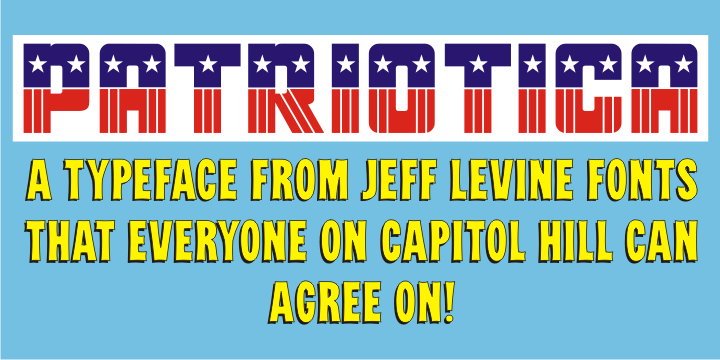
Patriotica
Patriotica JNL was inspired by some hand lettering designed by the late Alf Becker for Signs of the TimesĀ® magazine.
The alphabet was modified and the character set extended in this digital version. Special thanks to Tod Swormstedt of ST Publications, Inc. and the American Sign Museum in Cincinnati for providing a copy of the original lettering for use as a work model.
Patriotica JNL is available as a complete font or in a set of two layers (stars layer and stripes layer) for creating two-color graphics. As always, keep in mind that there are some slight variations between drawing programs, so some adjustments may need to be made in the alignment of the layers.